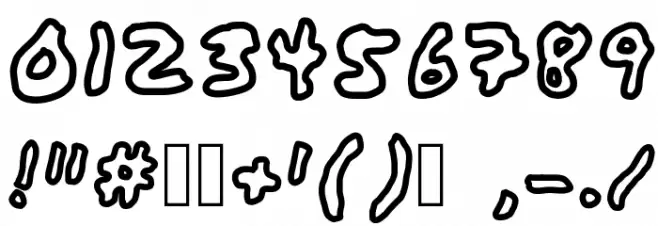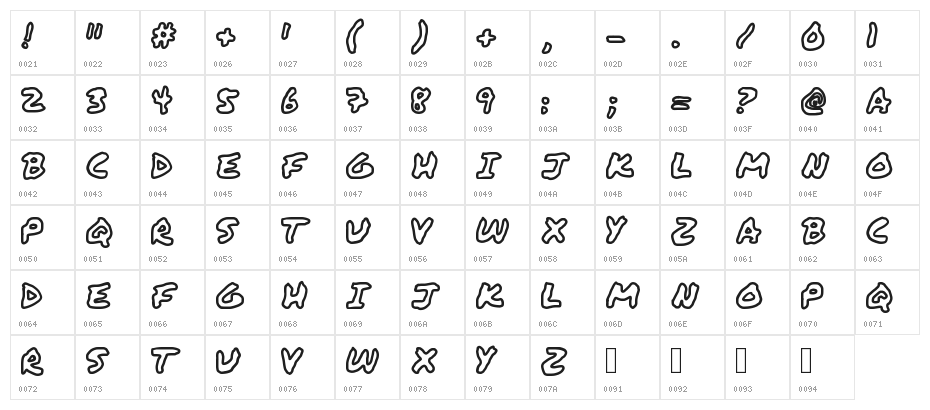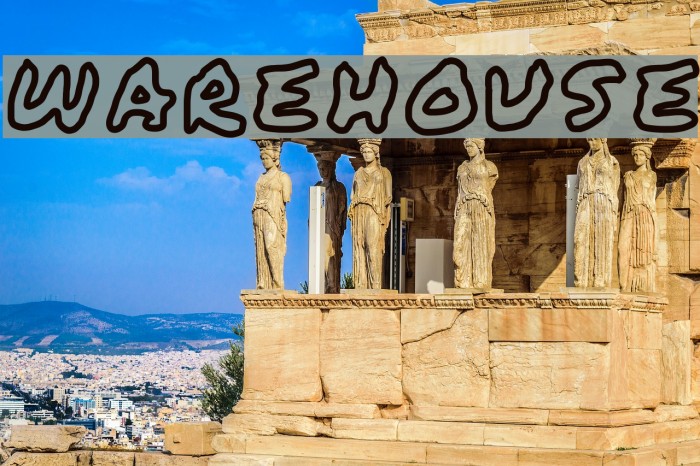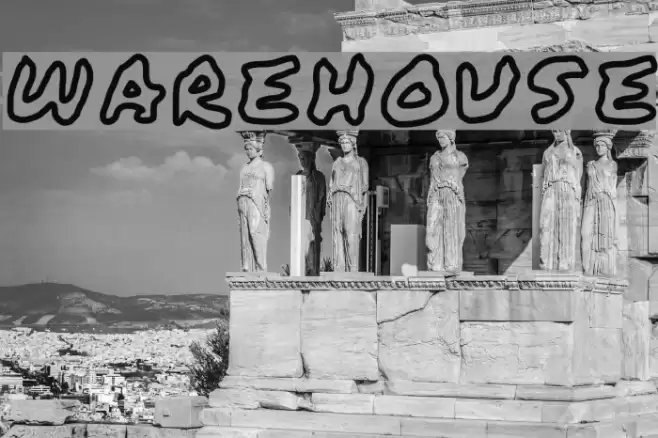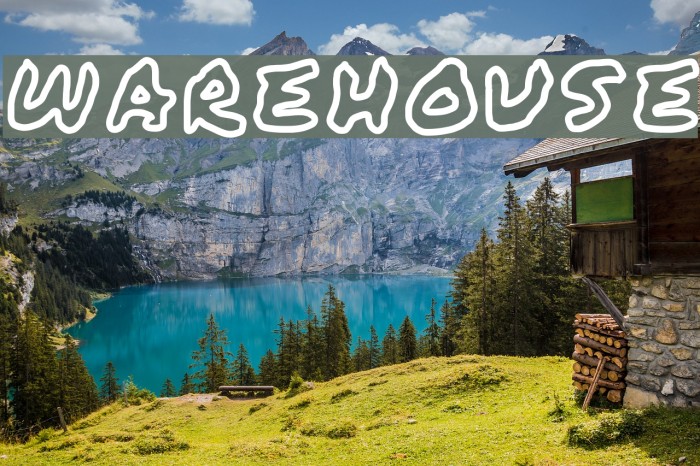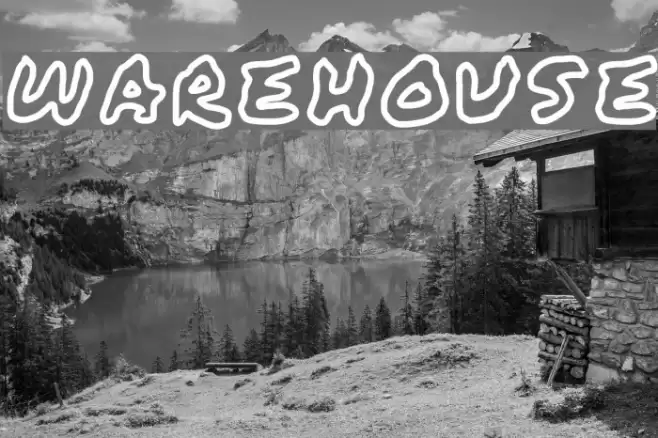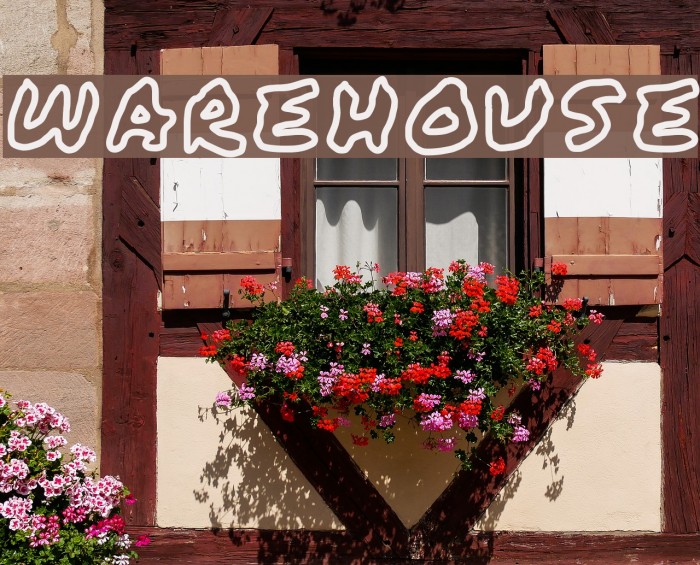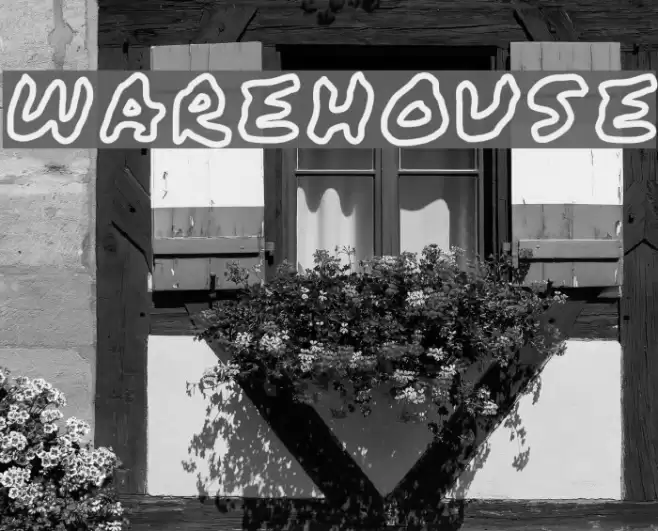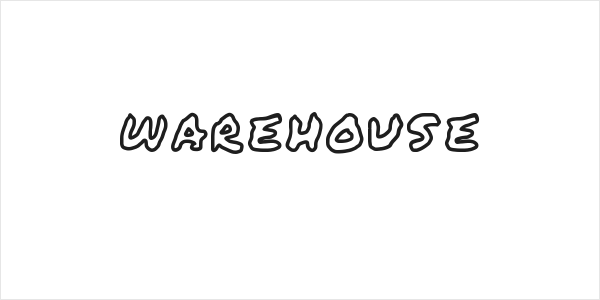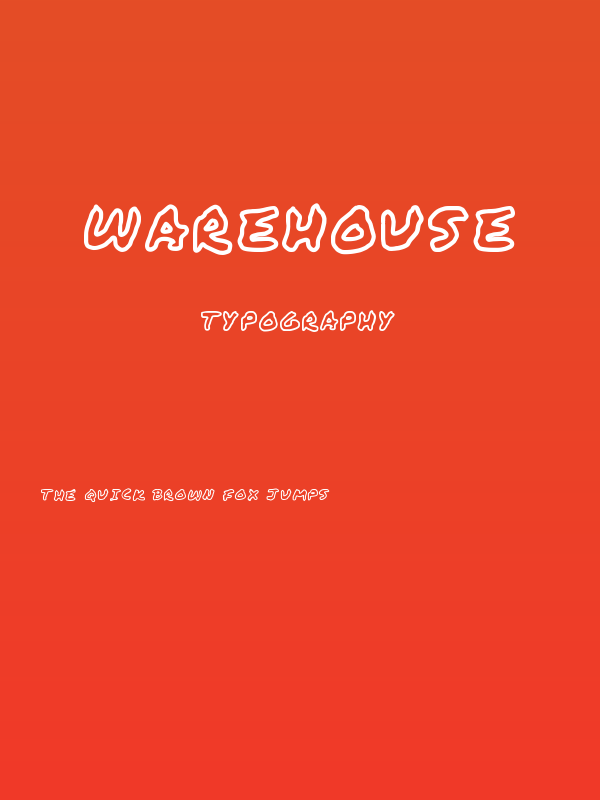
WAREHOUSE Font
WAREHOUSE Description
This font features a playful and bold style with a hand-drawn appearance. The characters are outlined, giving them a three-dimensional effect that stands out. The strokes are thick and consistent, creating a uniform look across all letters and numbers. The font has a casual and informal vibe, making it suitable for projects that require a fun and approachable aesthetic. The uppercase and lowercase letters maintain a consistent style, with rounded edges and a slightly irregular shape that adds to the hand-crafted feel. The numbers and special characters follow the same design principles, ensuring a cohesive look throughout.
| Overall Style | Playful, Casual |
| Proposed Projects | Ideal for children's books, comic strips, playful branding, and informal invitations. |